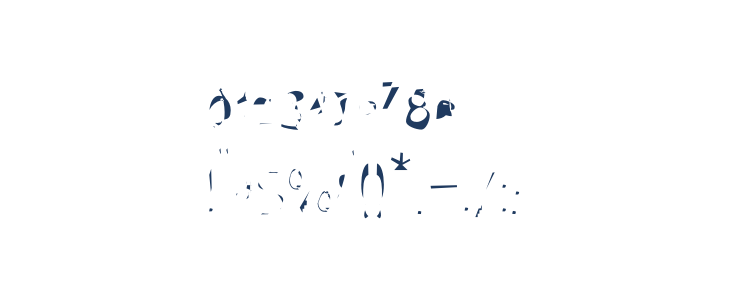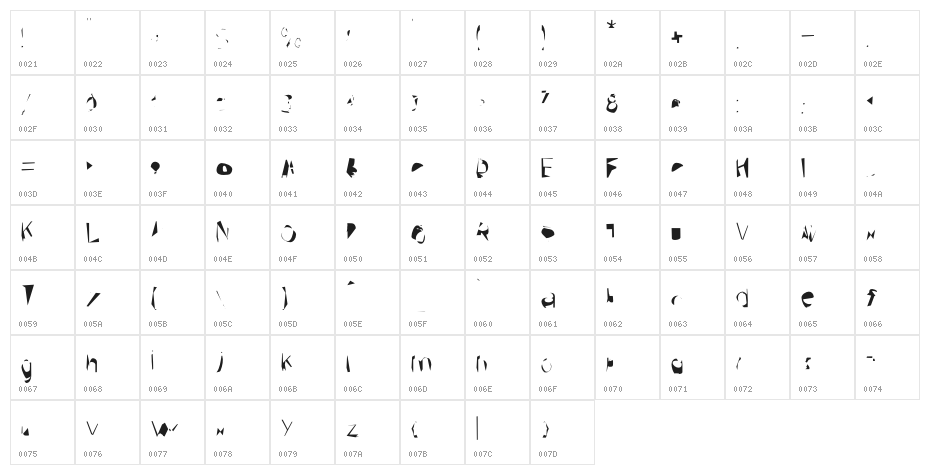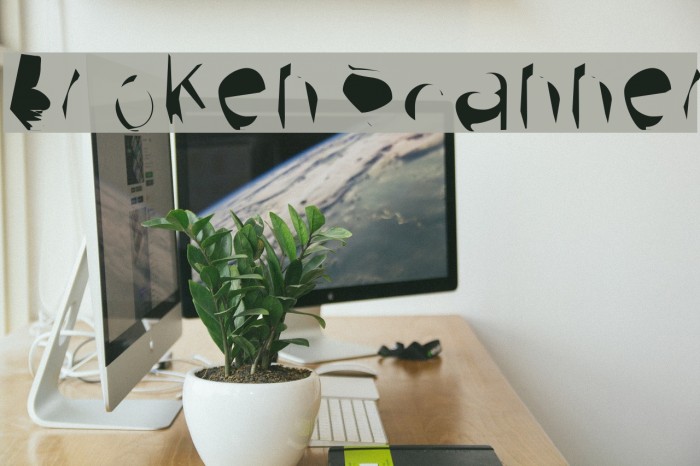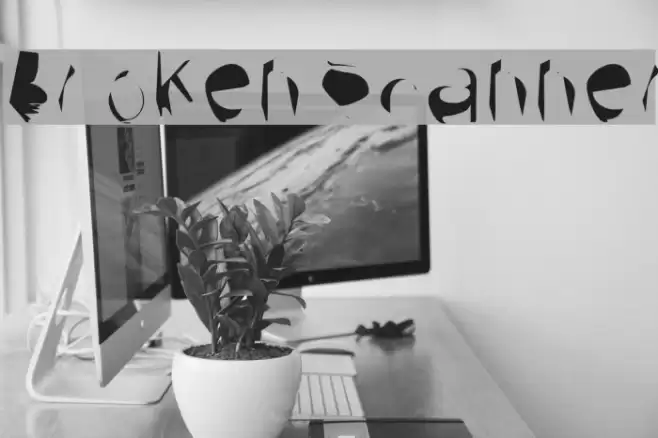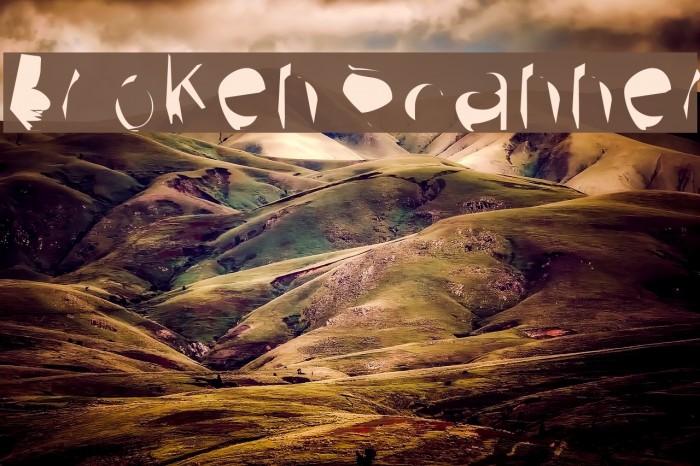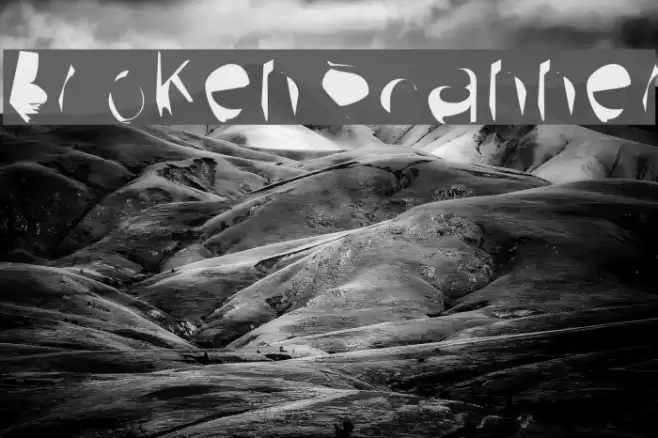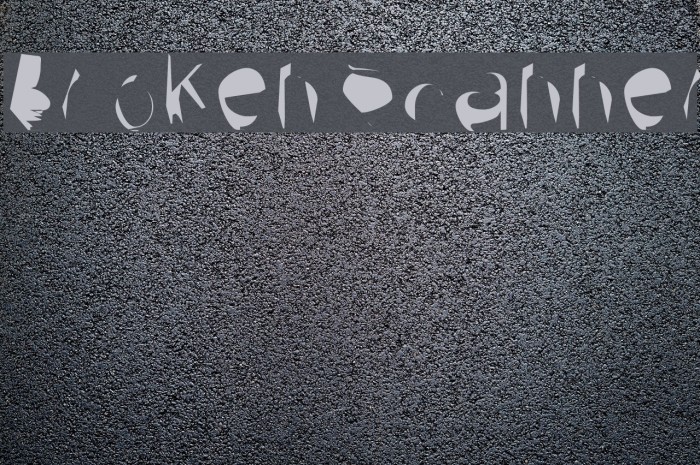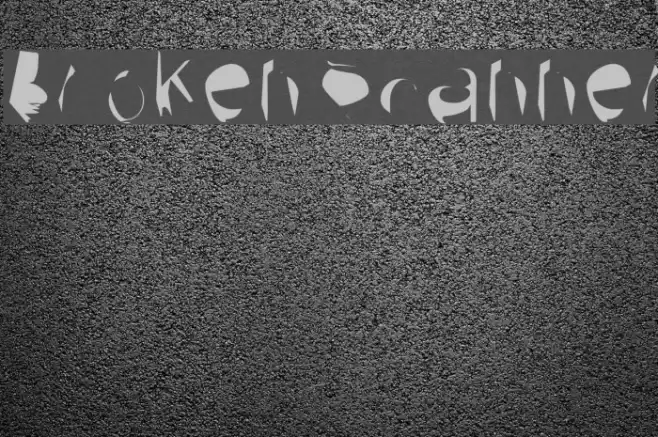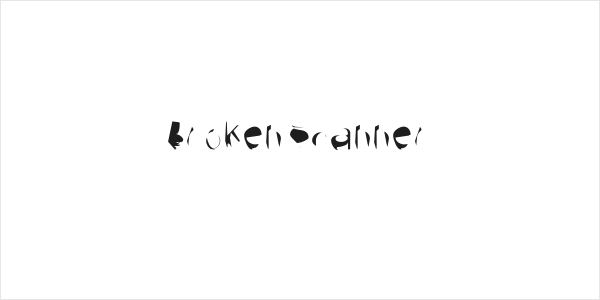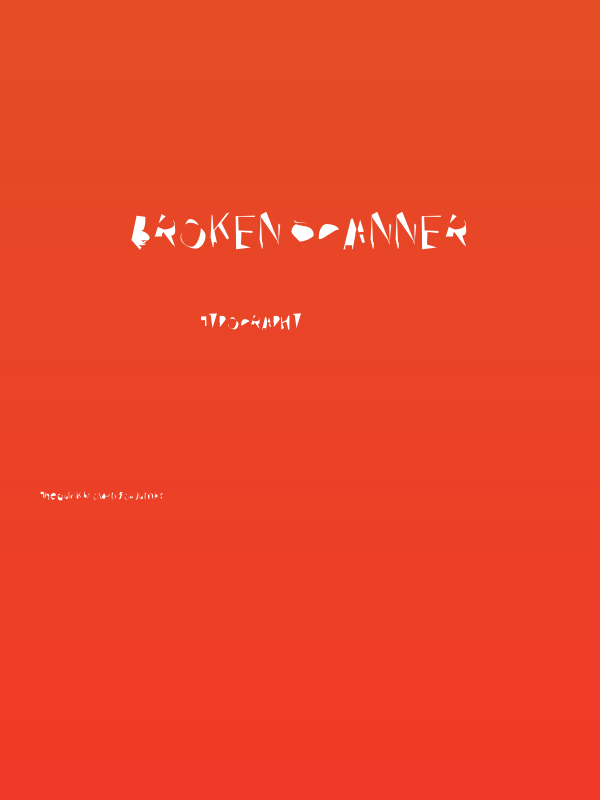
Broken Scanner Font
Broken Scanner Description
This font presents a highly abstract and fragmented design, where each character appears to be shattered or distorted, creating a chaotic yet intriguing visual effect. The letters are composed of sharp angles and irregular shapes, giving them a dynamic and edgy appearance. This style is reminiscent of a glitch or broken digital display, making it suitable for projects that aim to convey a sense of disruption or modernity. The font lacks uniformity, with varying stroke thicknesses and inconsistent spacing, adding to its unique and unconventional aesthetic.
| Overall Style | Modern, Abstract |
| Proposed Projects | Ideal for digital art, experimental design projects, album covers, and posters that require a modern, disruptive aesthetic. |